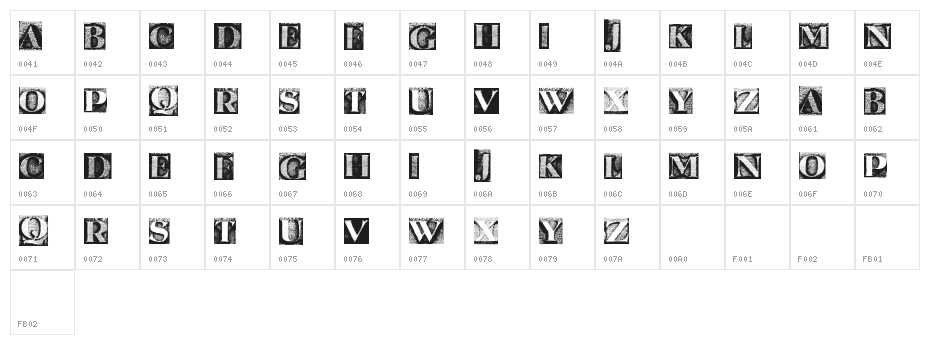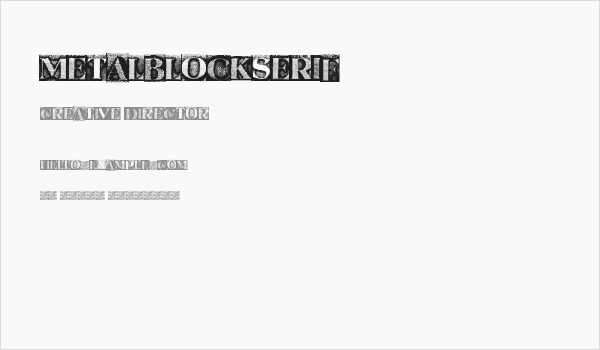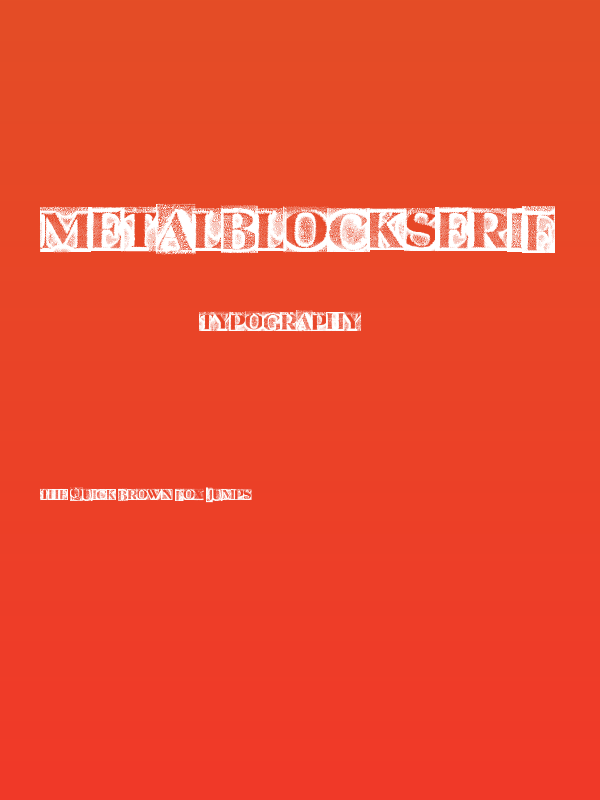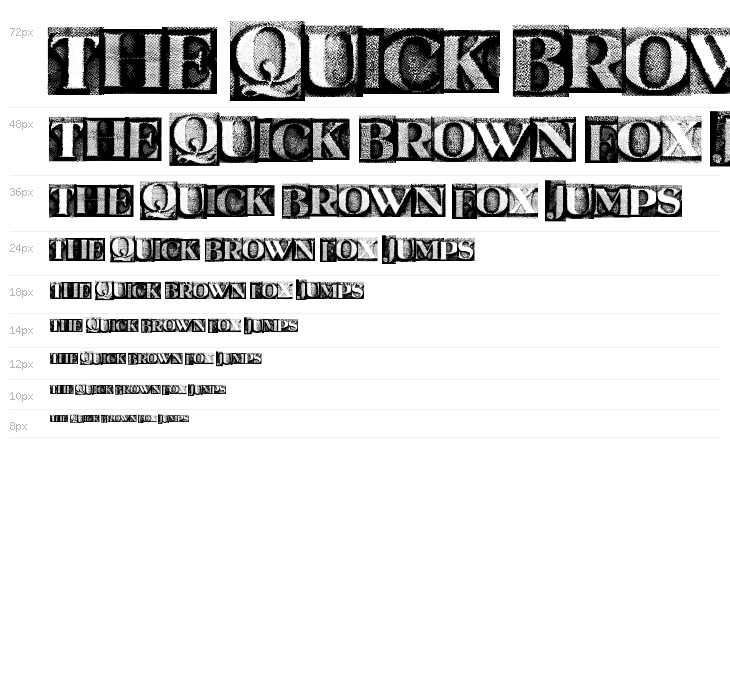
MetalBlockSerif Font
MetalBlockSerif Description
This font features a bold and striking design, characterized by its three-dimensional block-like appearance. Each letter is crafted with a metallic texture, giving it a robust and industrial feel. The serif elements add a touch of classic elegance, while the overall design maintains a modern and edgy aesthetic. The uppercase letters are prominently displayed, with sharp edges and a strong presence. The font's unique style makes it ideal for projects that require a bold statement, such as posters, logos, and headlines. Its distinctive look is both eye-catching and memorable, making it suitable for branding and advertising materials.